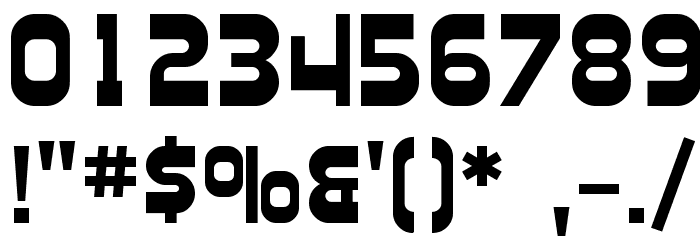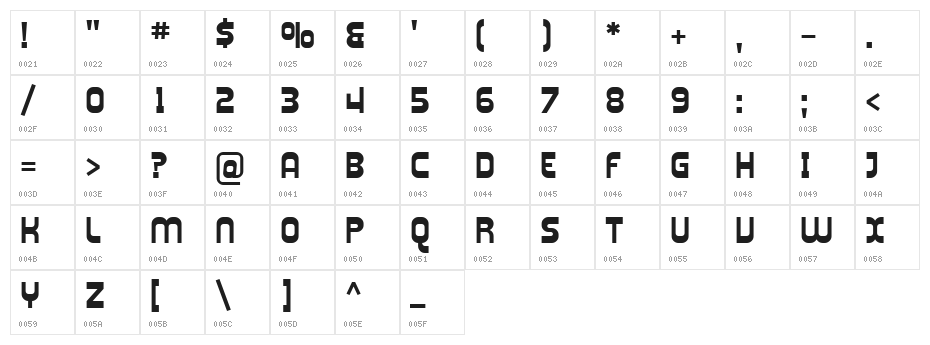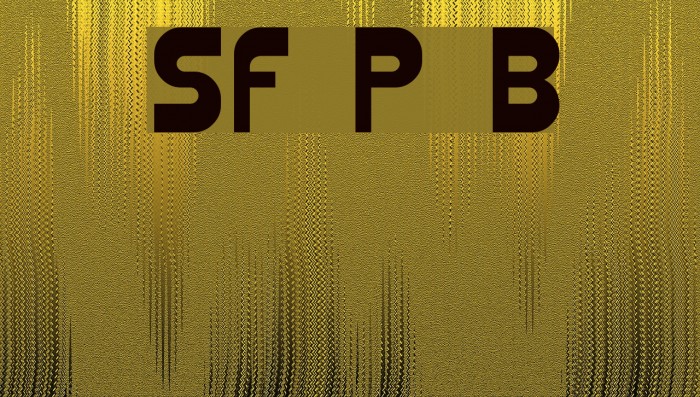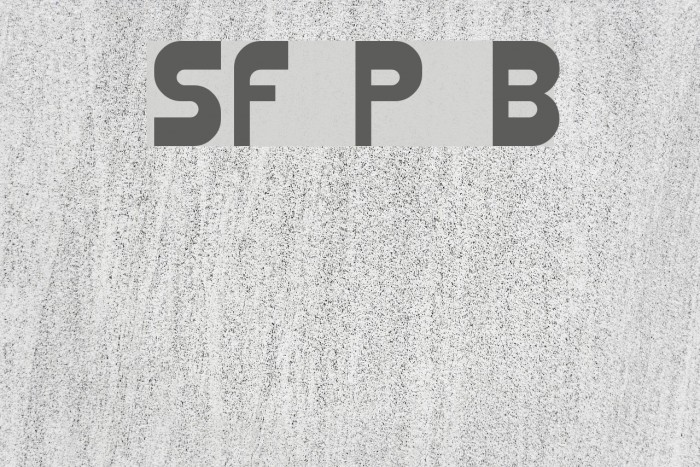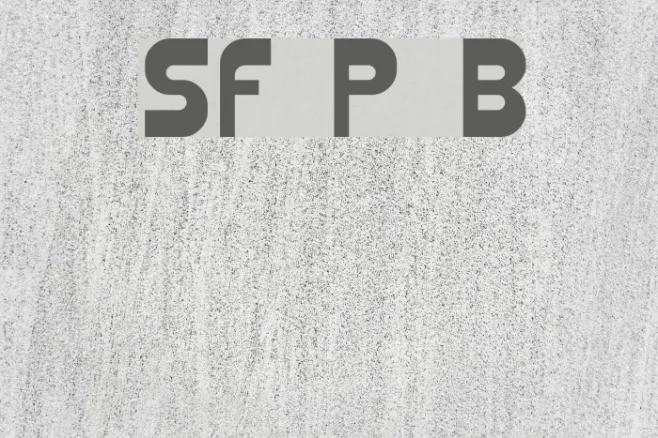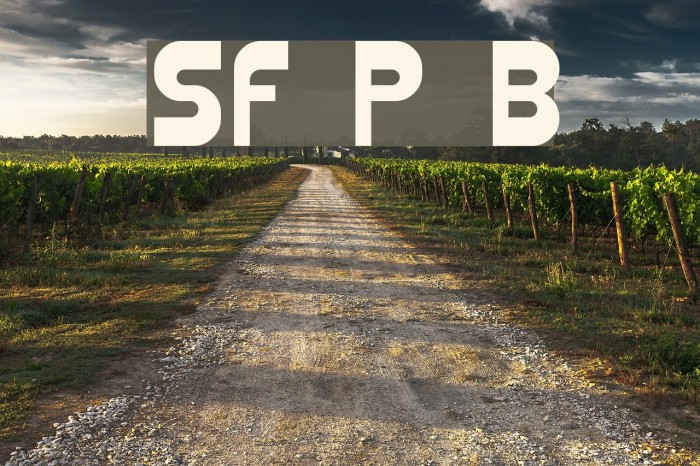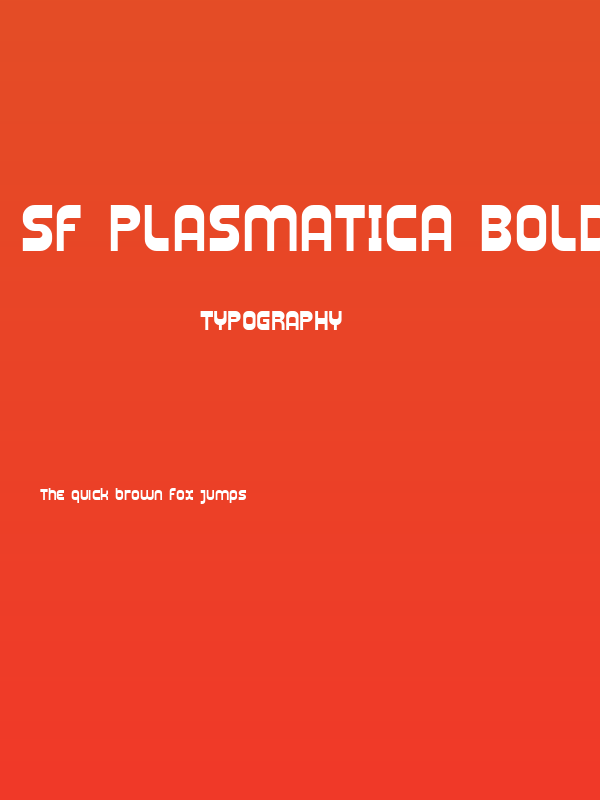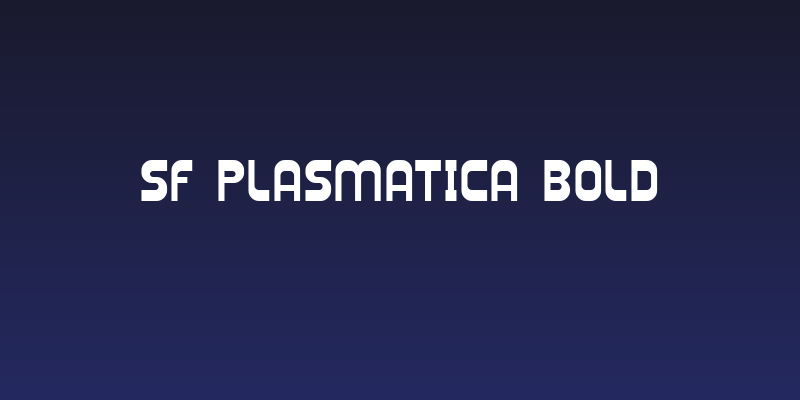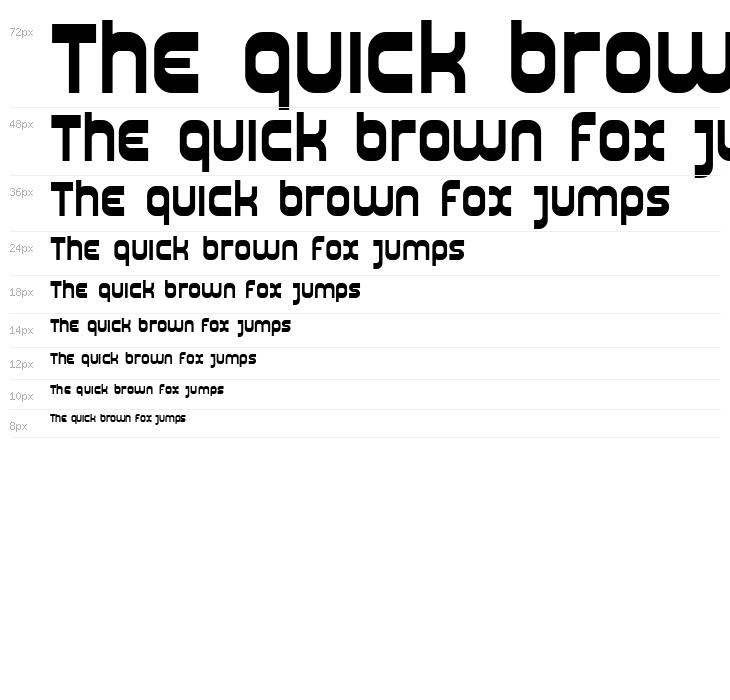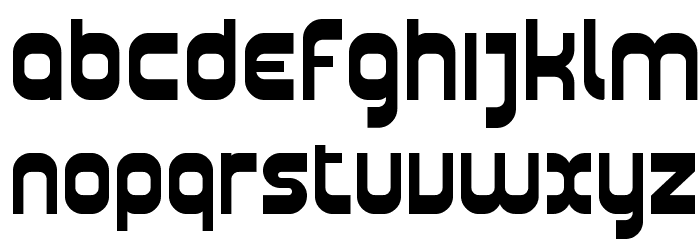
SF Plasmatica Bold Font
SF Plasmatica Bold Description
This font features a bold, futuristic design with rounded edges and a geometric structure. The characters are uniformly thick, giving it a strong presence. The uppercase and lowercase letters maintain a consistent style, with smooth curves and a modern aesthetic. The numerals are equally bold and clear, making them highly legible. Special characters are designed to match the overall style, ensuring a cohesive look across all text elements. The font's design is versatile, suitable for both digital and print media, and it stands out with its unique, contemporary appearance.
| Proposed Projects | Ideal for technology branding, sci-fi themed projects, digital interfaces, and modern advertising. |